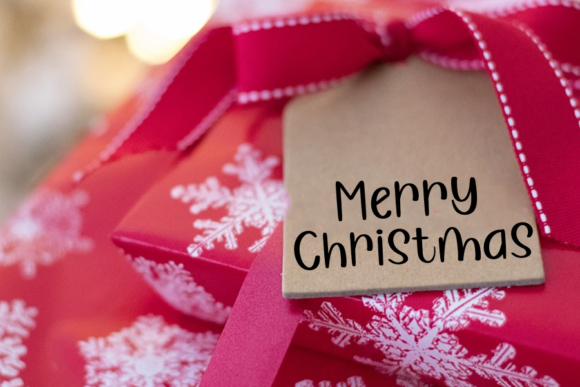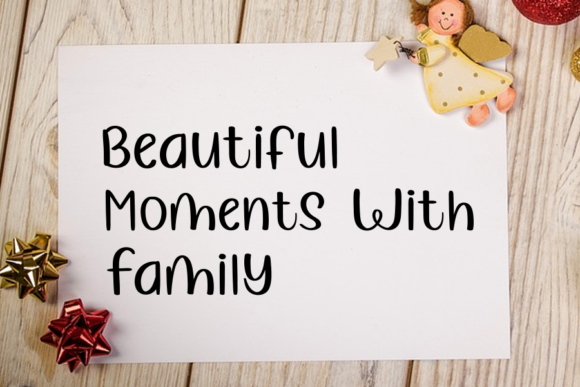
Winter Christmas Font
db-ku.com - Script & Handwritten -- Winter Christmas is a cute and trendy handwritten font. Its natural and unique style makes it incredibly fitting to a large pool of designs. The only limit is your imagination!